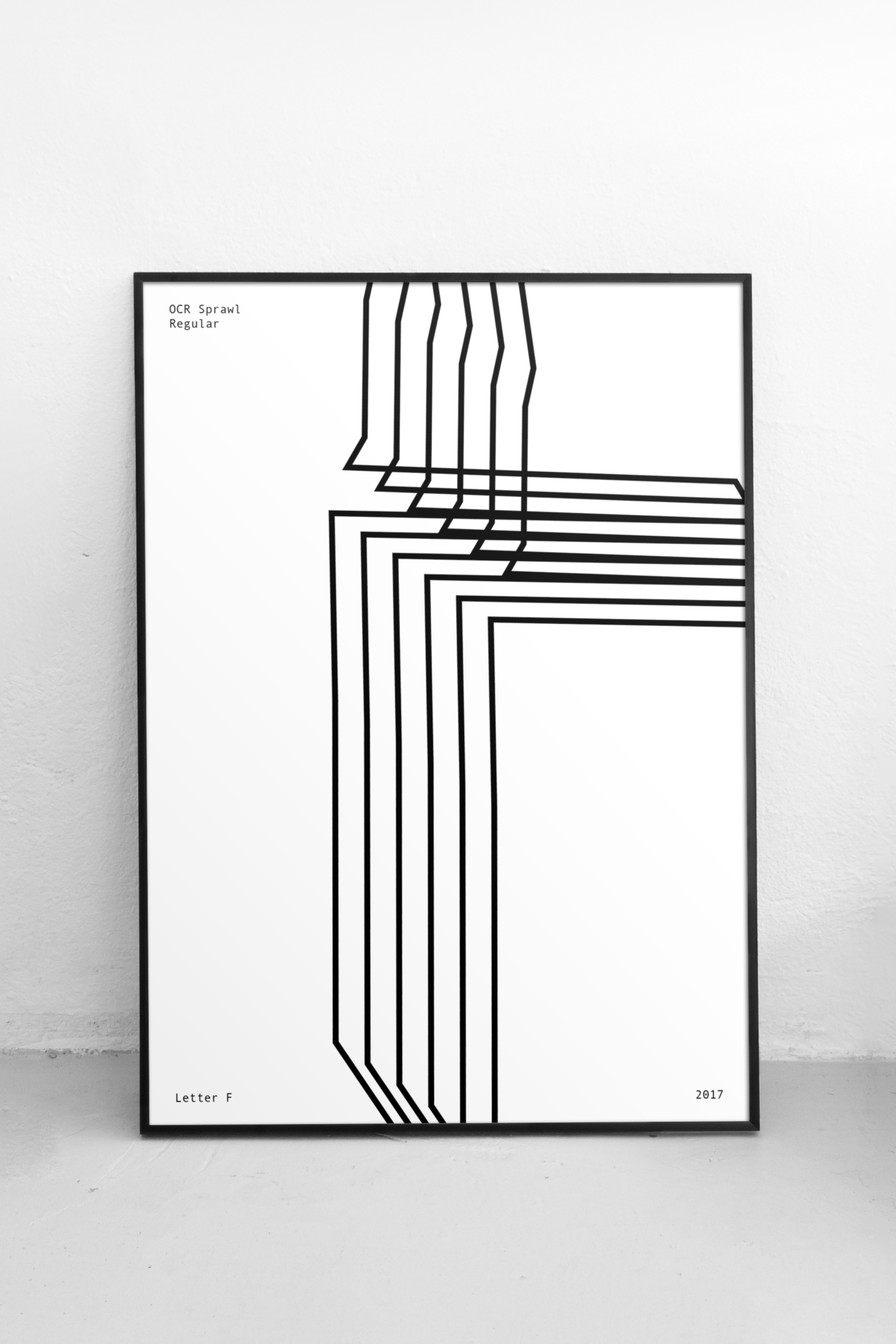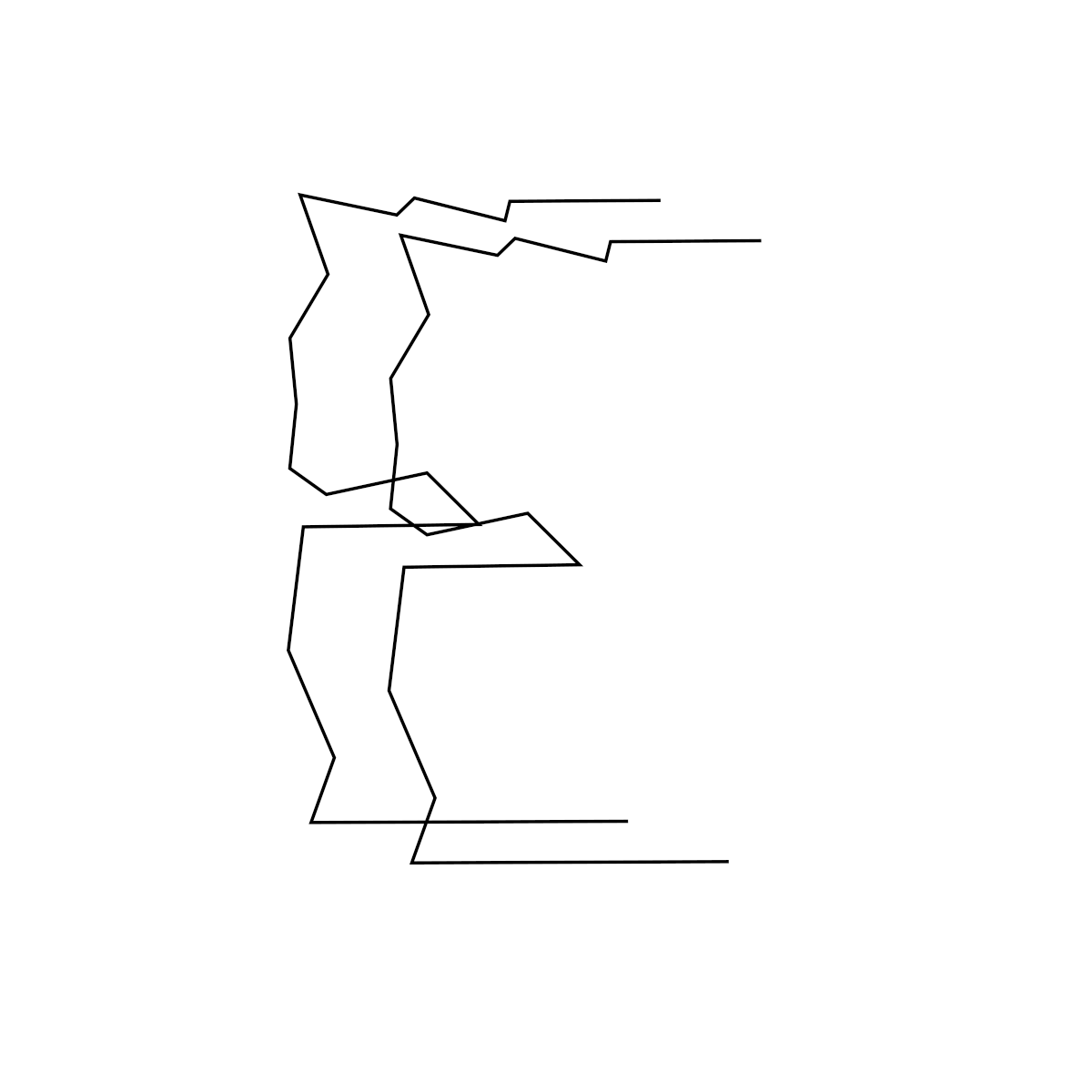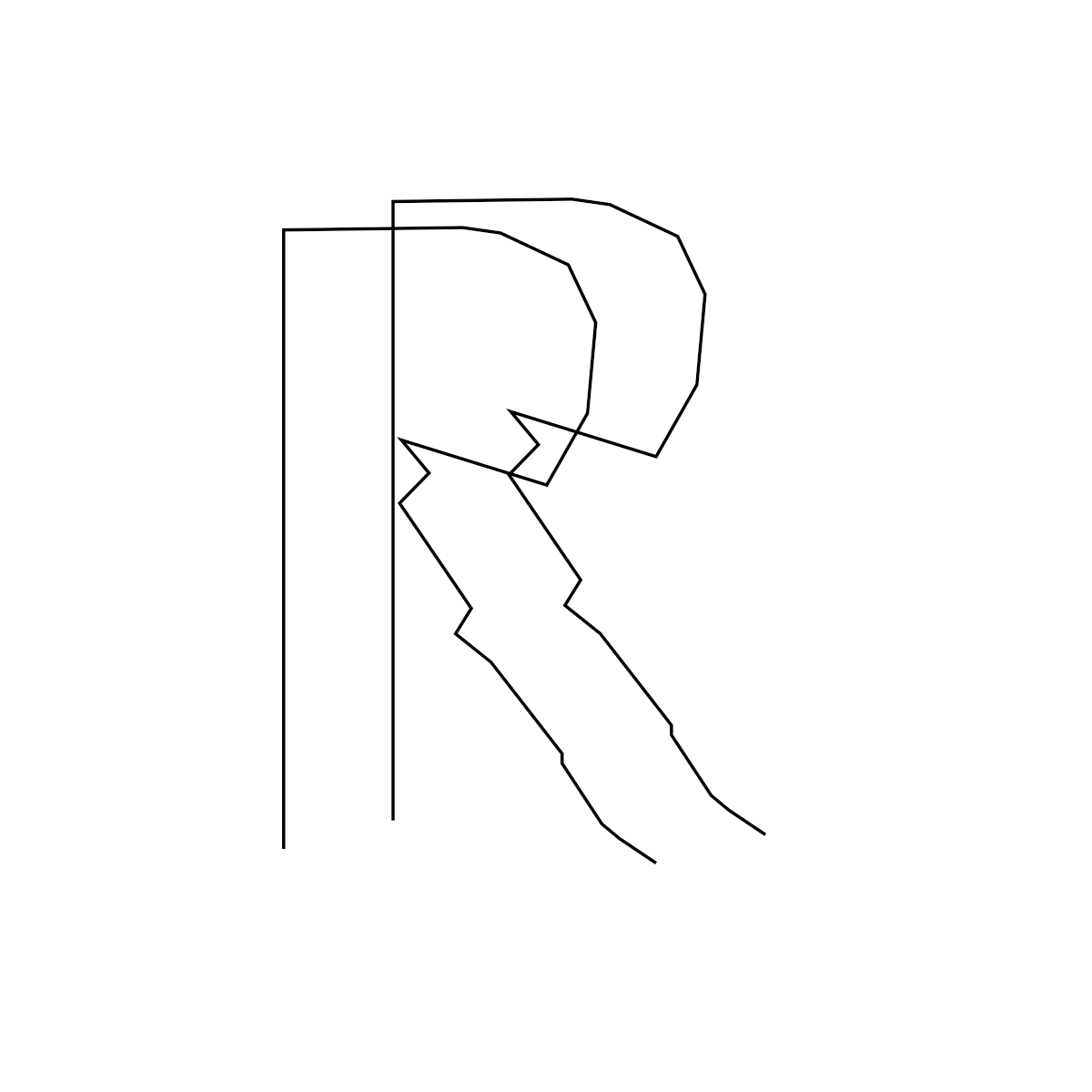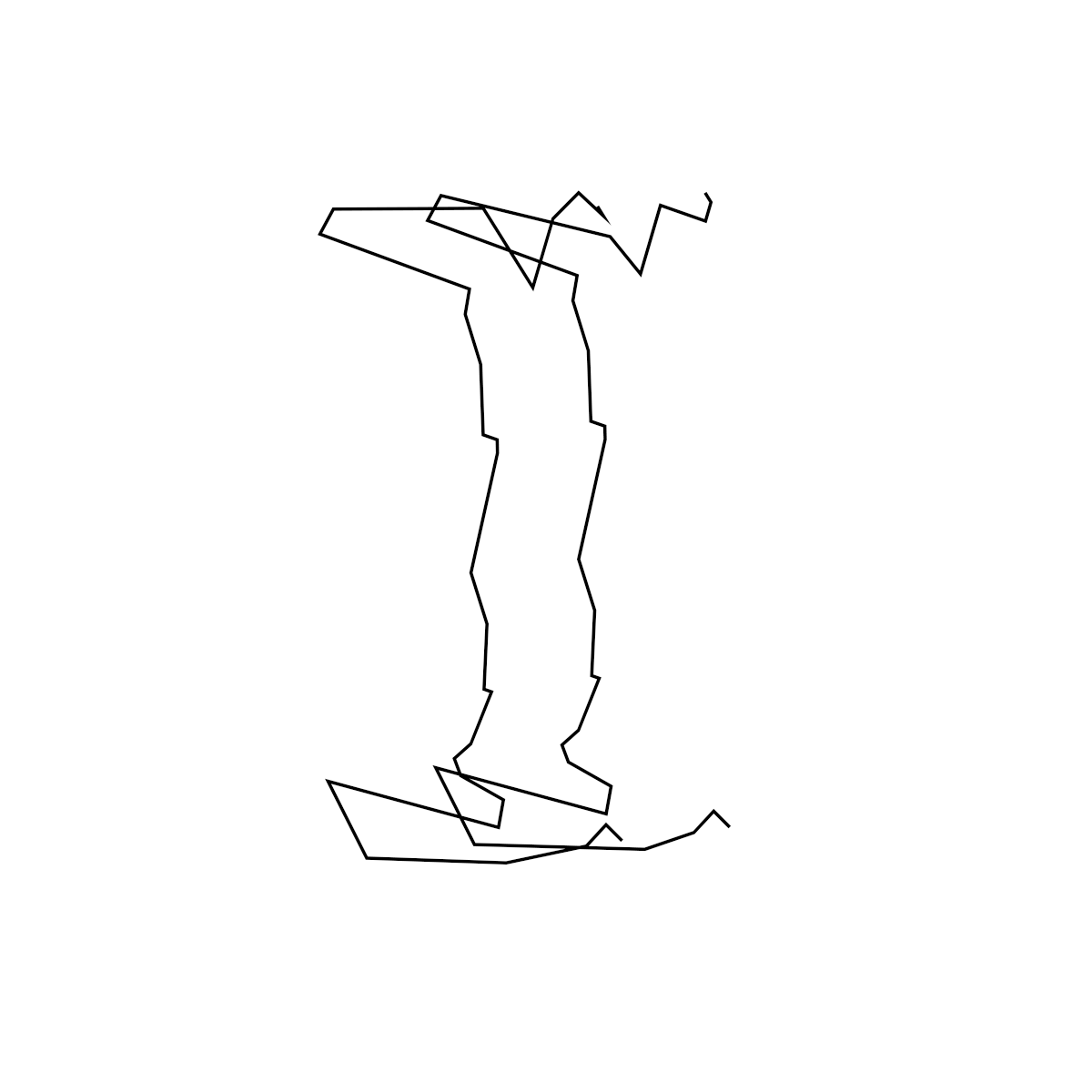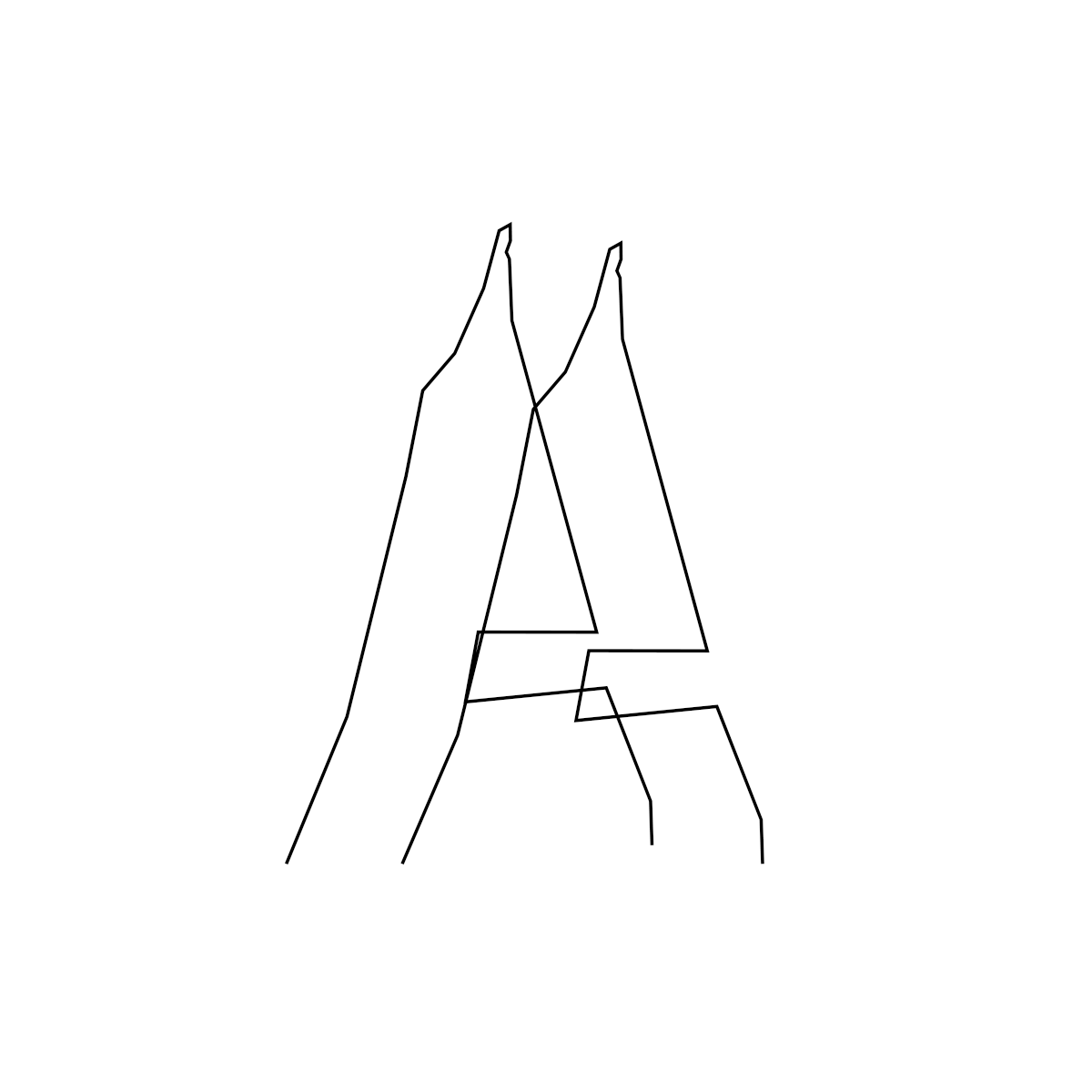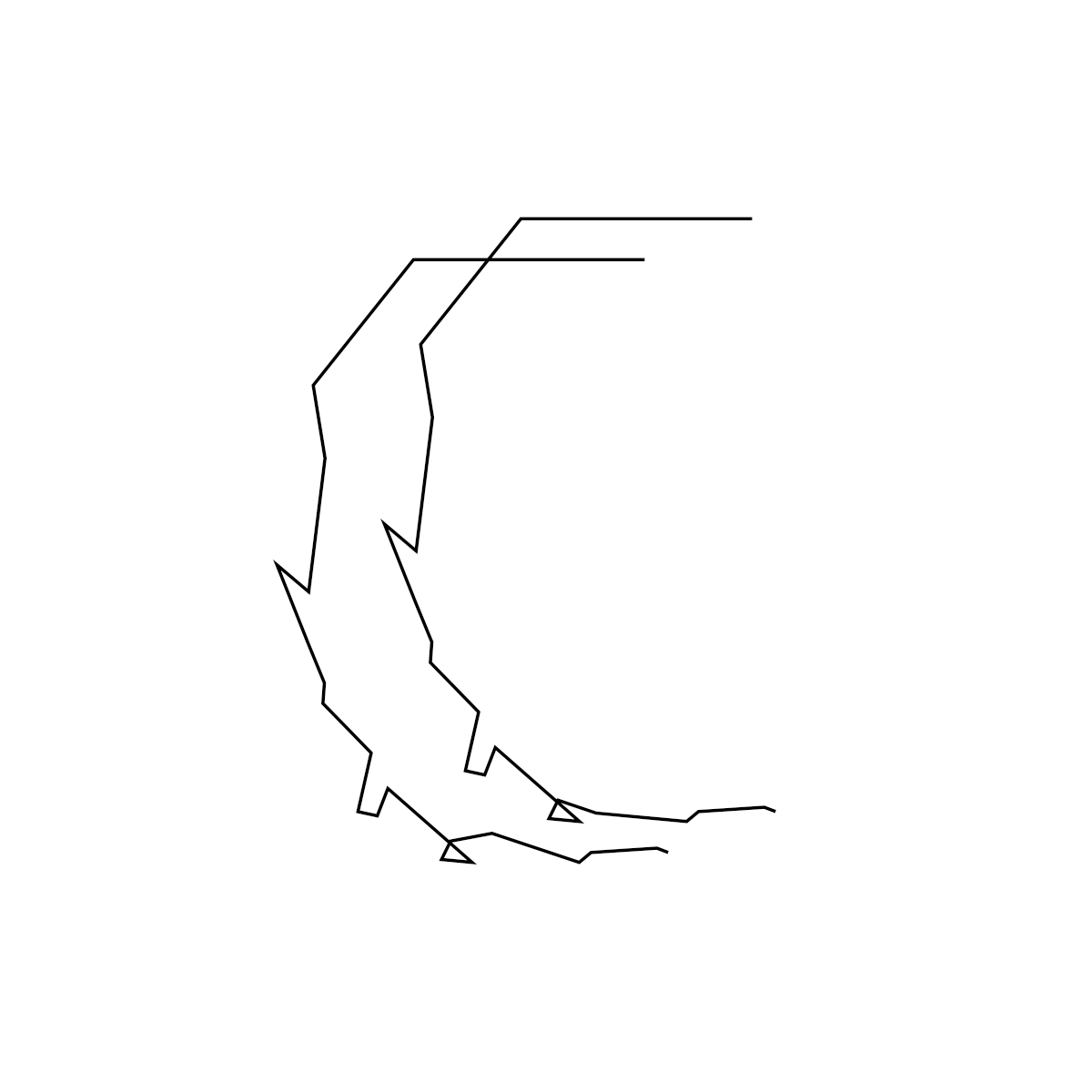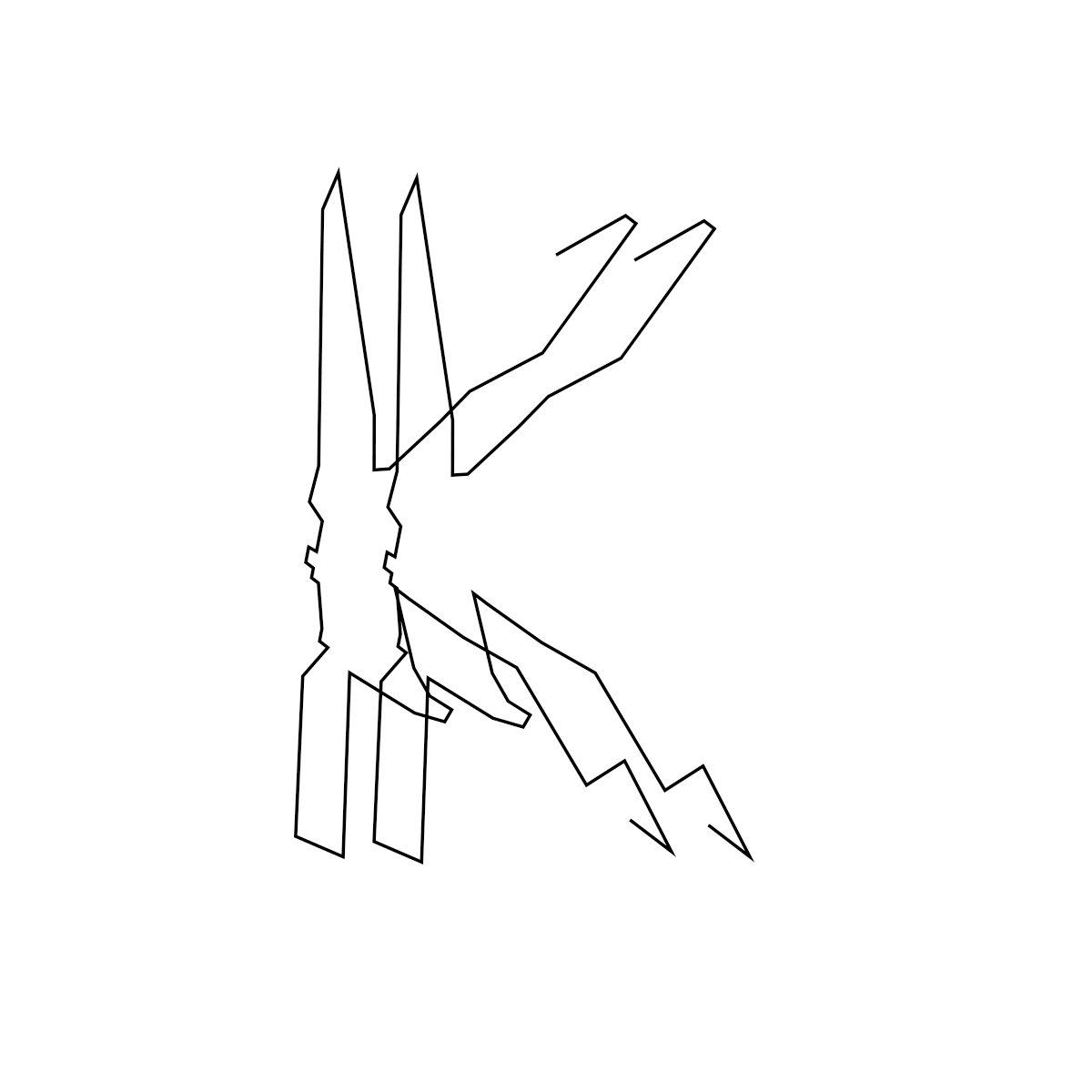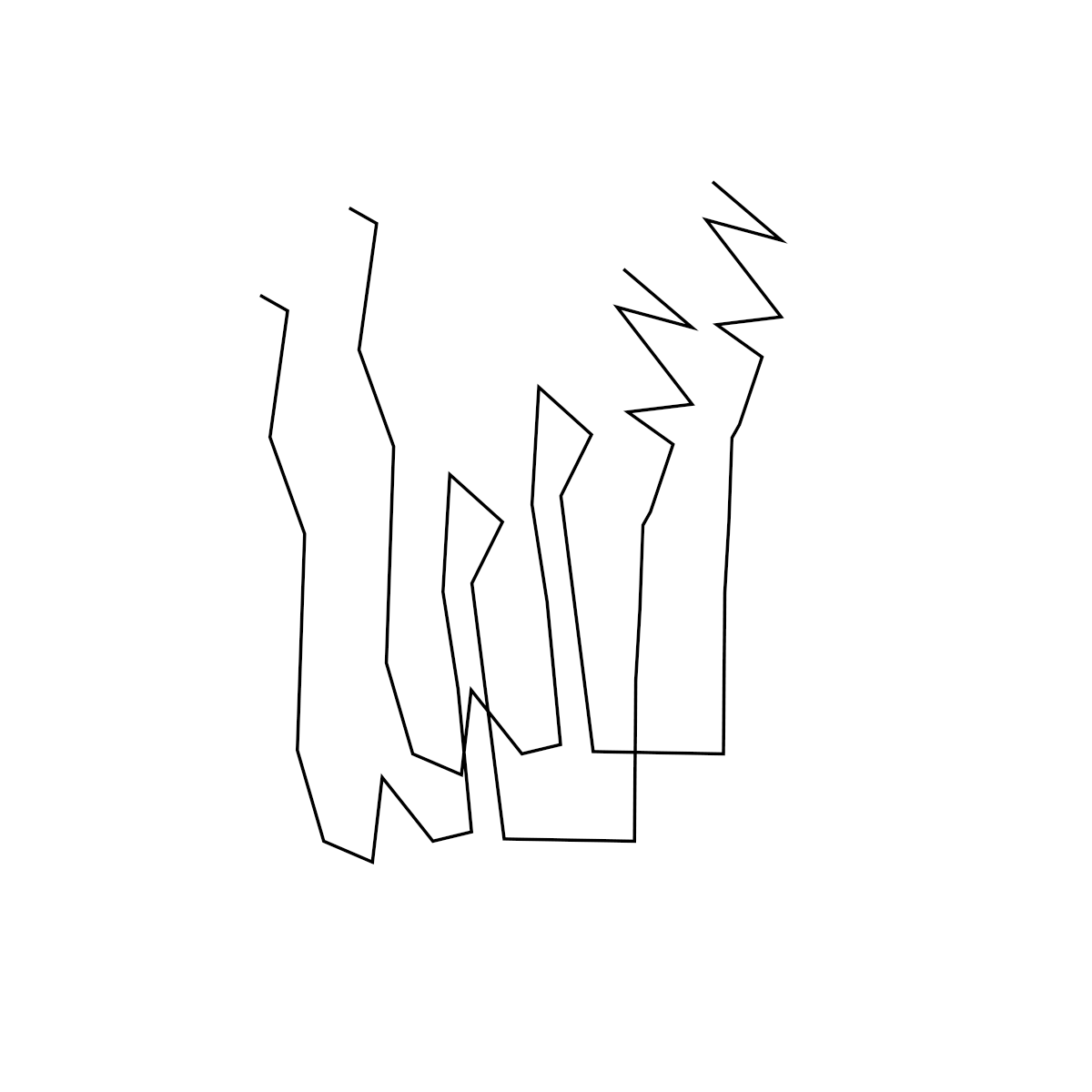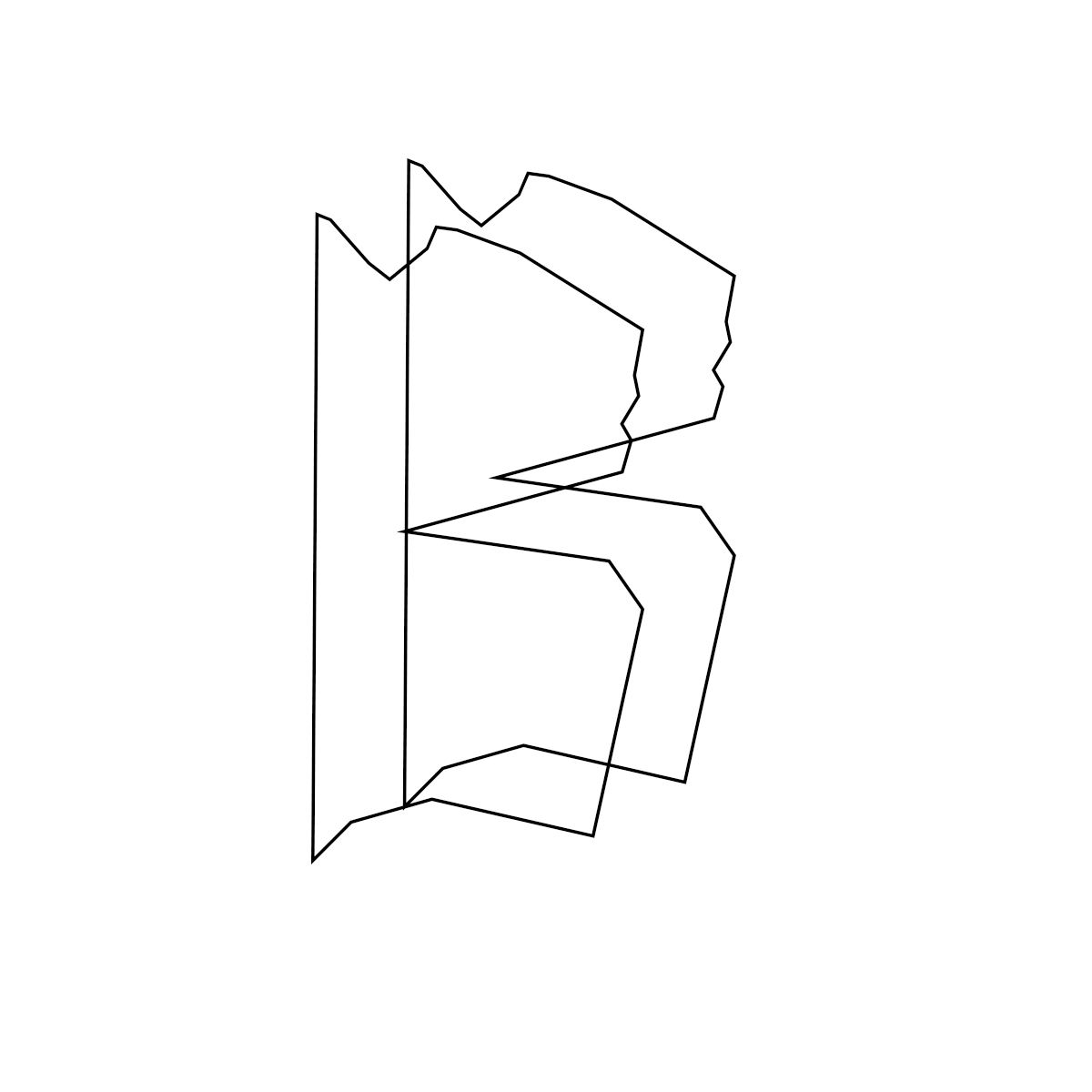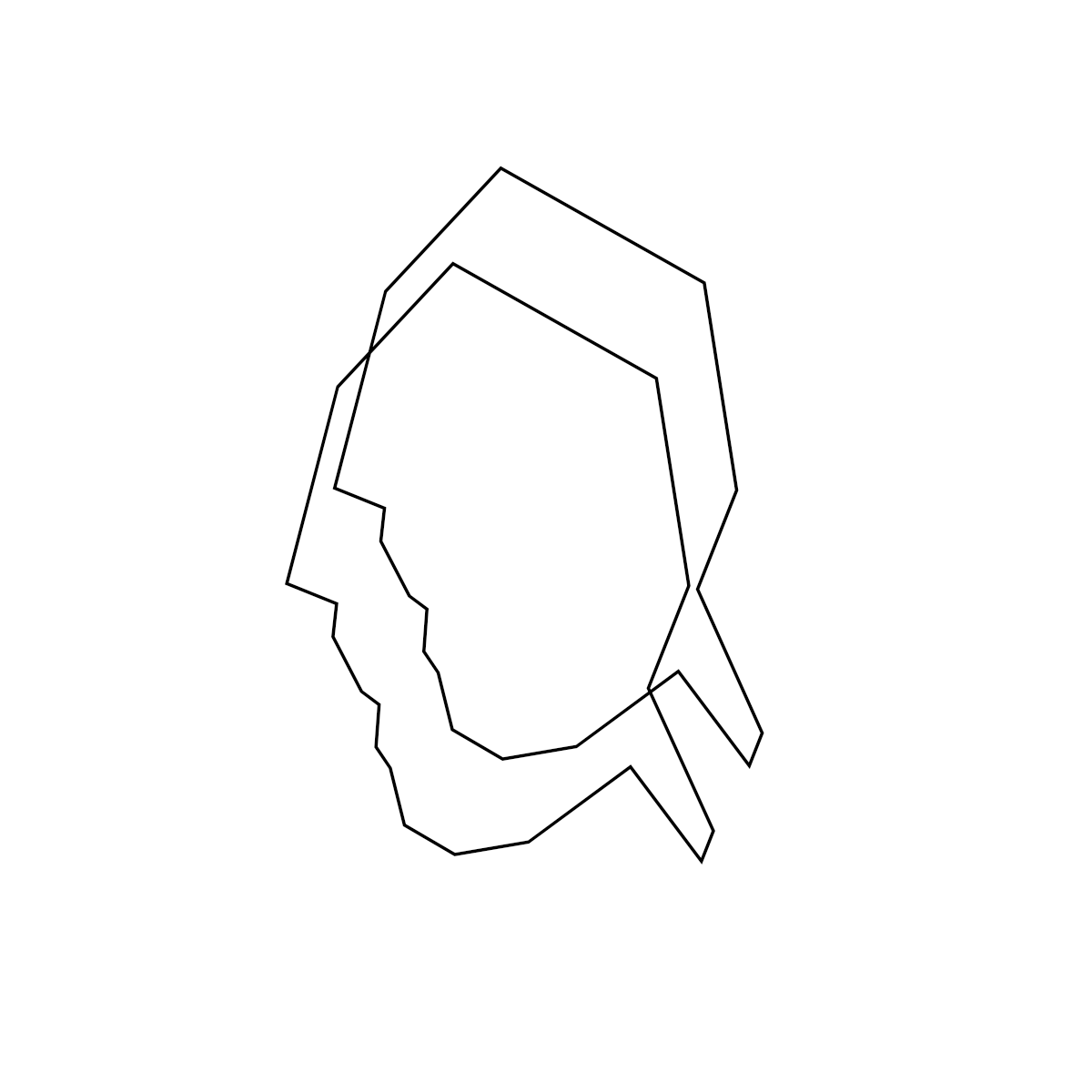
Typeface design based on the topic of urban sprawl in Auckland. This typeface focuses on human nature and interactions, through graphic elements of expansion and growth.
The use of pattern and repetition imply the concept of urban sprawl, while creating erratic and inconsistent letter forms. Urban sprawl can provide immense opportunities for designers, but we must ensure we design with social and environmental sustainability in mind. We should question what it means to have a sense of place, by putting people and communities at the forefront of design.
OCR Sprawl
Typeface Design